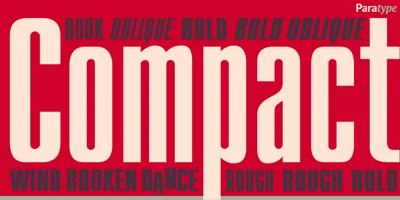
Compact Font
Compact Font is perfect for space-efficient design, technical documentation, data visualization, mobile interfaces, dense information layouts, financial reports, and space-constrained applications. This condensed typeface maximizes content capacity while maintaining exceptional readability and professional appearance.
Compact Font is exciting because it delivers maximum information density with its efficiently designed letterforms that optimize horizontal space usage while ensuring excellent legibility and maintaining professional aesthetics in space-critical design applications.
The Compact Font family includes multiple weights from Light to Black, each featuring condensed proportions optimized for maximum text efficiency. This space-saving collection provides designers with complete flexibility for creating information-dense yet readable typography systems.
Compact Font offers designers access to a precisely engineered typeface specifically designed for space-efficient typography and high-density information display. This functional font features carefully compressed letterforms with optimal character spacing that ensures exceptional readability while maximizing content capacity in limited space environments. The typeface showcases efficient design principles with condensed proportions that enhance information density without sacrificing legibility or professional appearance. Its space-saving character makes it particularly suitable for technical applications and data-heavy projects that require typography capable of displaying maximum information within constrained layouts. Compact Font delivers consistent performance across various high-density applications while maintaining excellent readability in both digital and print formats. The font's efficient design and technical precision make it an indispensable tool for designers working on projects that require optimal space utilization and clear information presentation in environments where every character counts and readability remains paramount.